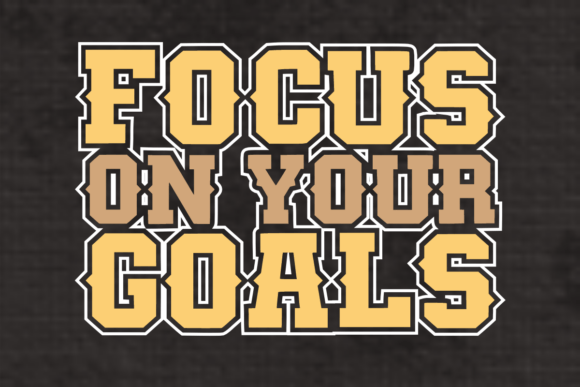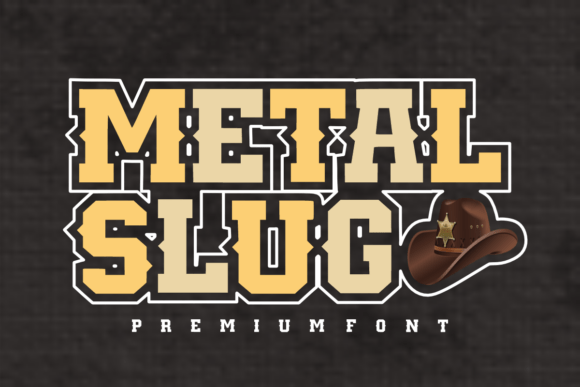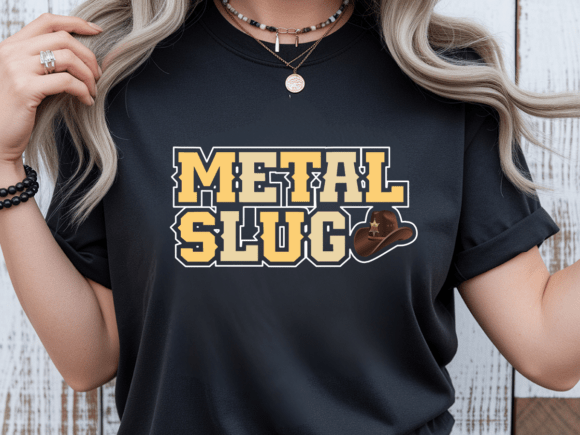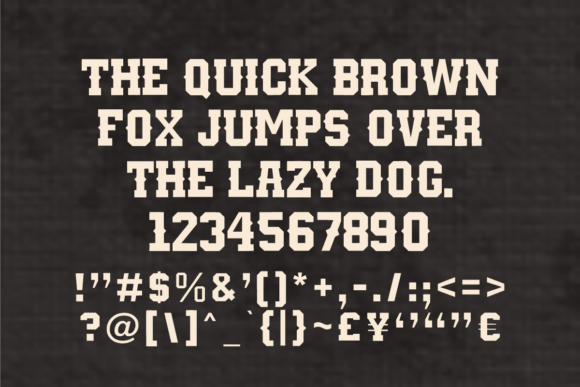
Unleash the Wild West with Black Cowboy Font 🤠
Are you ready to add a touch of rugged elegance to your designs? Look no further than the Black Cowboy font! 🌵 This bold, Western-style display font is perfect for designers and crafters who want to capture the timeless spirit of the frontier. With its strong slab-serif characters and classic outlaw aesthetic, Black Cowboy is built to make a statement in any adventure-themed design.
The Perfect Font for Western-Inspired Designs 🌄
Black Cowboy is more than just a font – it’s a statement piece. Its bold, rugged design is perfect for creating eye-catching headlines, titles, and posters that evoke the spirit of the Wild West. Whether you’re branding a ranch, designing for a rodeo, or creating vintage-style posters, Black Cowboy provides a solid and professional look that’s sure to turn heads.
Key Features of Black Cowboy Font 🤠
- Bold and Rugged Design: Black Cowboy’s strong slab-serif characters and classic outlaw aesthetic make it perfect for creating bold, eye-catching designs.
- Clean Lines and Balanced Weight: The font’s clean lines and balanced weight make it highly optimized for cutting machines like Cricut and Silhouette.
- Western-Inspired Aesthetic: Black Cowboy’s Western-inspired design is perfect for creating authentic, vintage-style posters and branding materials.
- Professional and Versatile: The font’s professional and versatile design makes it perfect for a wide range of design applications, from ranch branding to rodeo posters.
Why Choose Black Cowboy Font? 🤔
So why choose Black Cowboy font for your next design project? Here are just a few reasons:
- Unique and Authentic Design: Black Cowboy’s unique and authentic design sets it apart from other fonts on the market.
- Easily Readable: The font’s bold design and clean lines make it easily readable, even at smaller sizes.
- Highly Versatile: Black Cowboy is highly versatile and can be used for a wide range of design applications, from posters and flyers to branding and packaging.
- Optimized for Cutting Machines: The font’s clean lines and balanced weight make it highly optimized for cutting machines like Cricut and Silhouette.
How to Use Black Cowboy Font in Your Designs 🎨
Black Cowboy font is perfect for a wide range of design applications, including:
- Ranch Branding: Use Black Cowboy to create bold, eye-catching branding materials for your ranch or farm.
- Rodeo Posters: Create authentic, vintage-style posters for your next rodeo event.
- Vintage-Style Posters: Use Black Cowboy to create bold, eye-catching posters that evoke the spirit of the Wild West.
- Cricut and Silhouette Projects: The font’s clean lines and balanced weight make it highly optimized for cutting machines like Cricut and Silhouette.